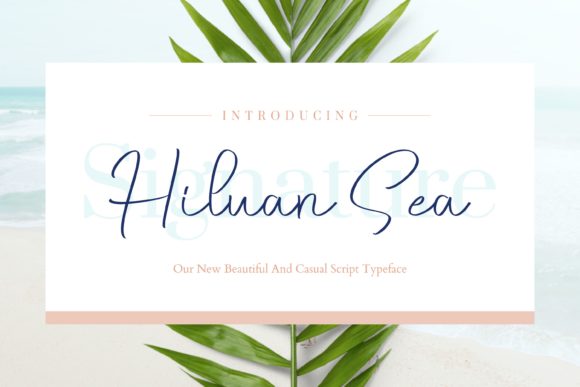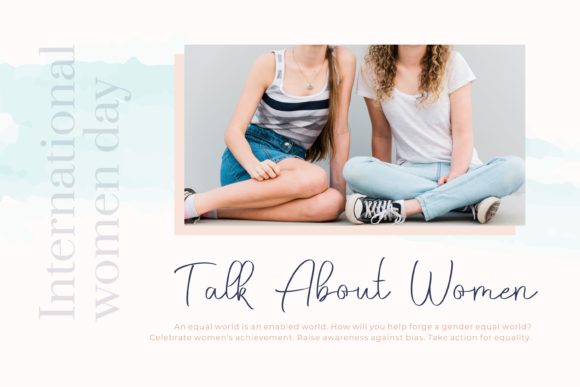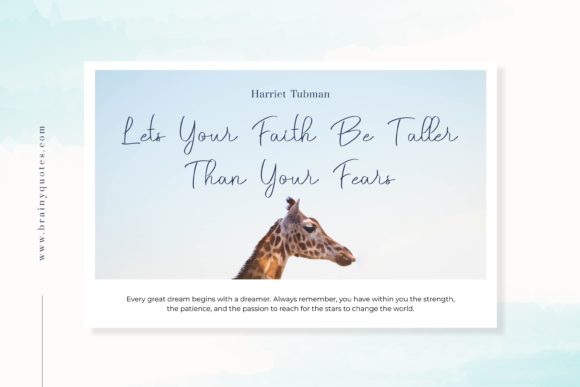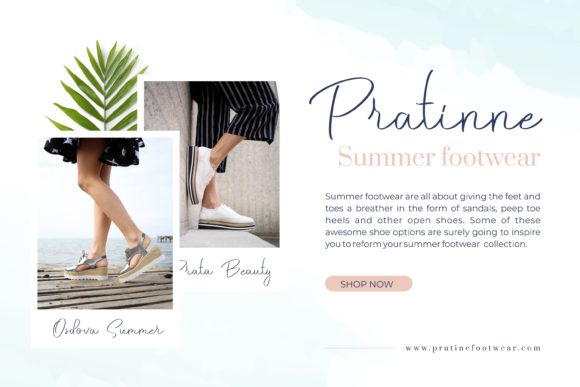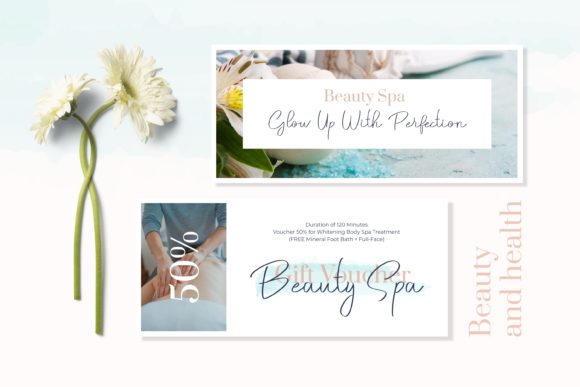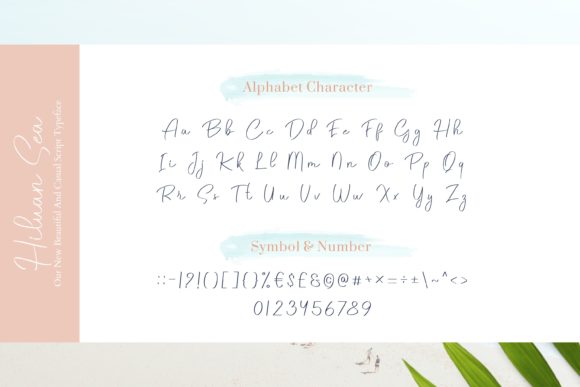
Hiluan Sea Font
About Hiluan Sea Font
Hiluan Sea feels equally charming and elegant. This handwritten font will elevate a wide range of design projects to the highest level, be it branding, headings, wedding designs, invitations, signatures, logos, labels, and much more!